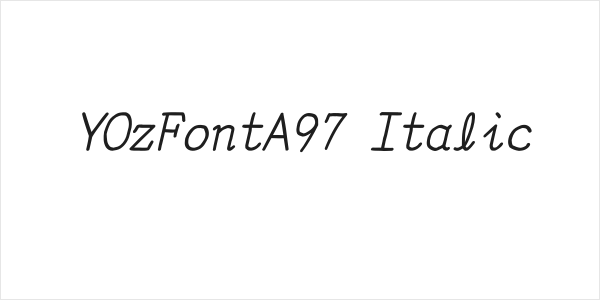
YOzFontA97 Italic Font
YOzFontA97 Italic Description
This font features a classic italic style with a slight slant, giving it a sense of motion and elegance. The characters are well-formed with a consistent stroke width, providing a clean and readable appearance. The uppercase letters are distinct and slightly taller than the lowercase, which have a more rounded and flowing form. The numerals are clear and proportional, maintaining the overall aesthetic of the font. Special characters are included, matching the style of the letters and numbers, making it versatile for various uses.
Overall StyleClassic
Use CaseHeadlines, Invitations, Branding
Proposed ProjectsIdeal for projects requiring a touch of elegance, such as wedding invitations, formal event programs, or classic branding materials.